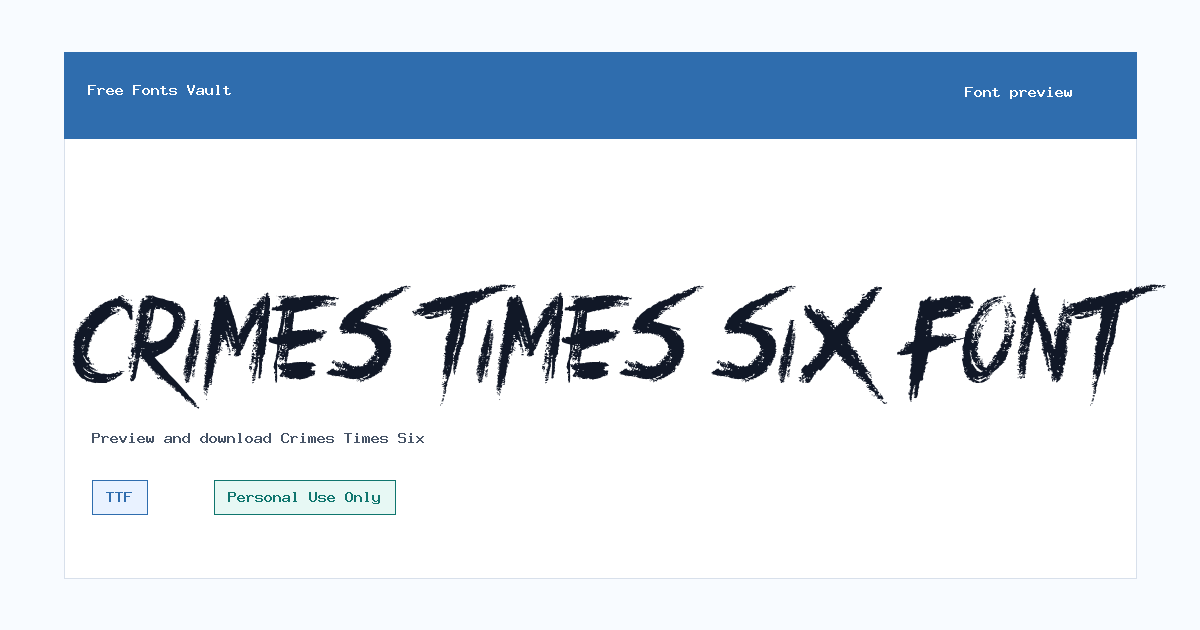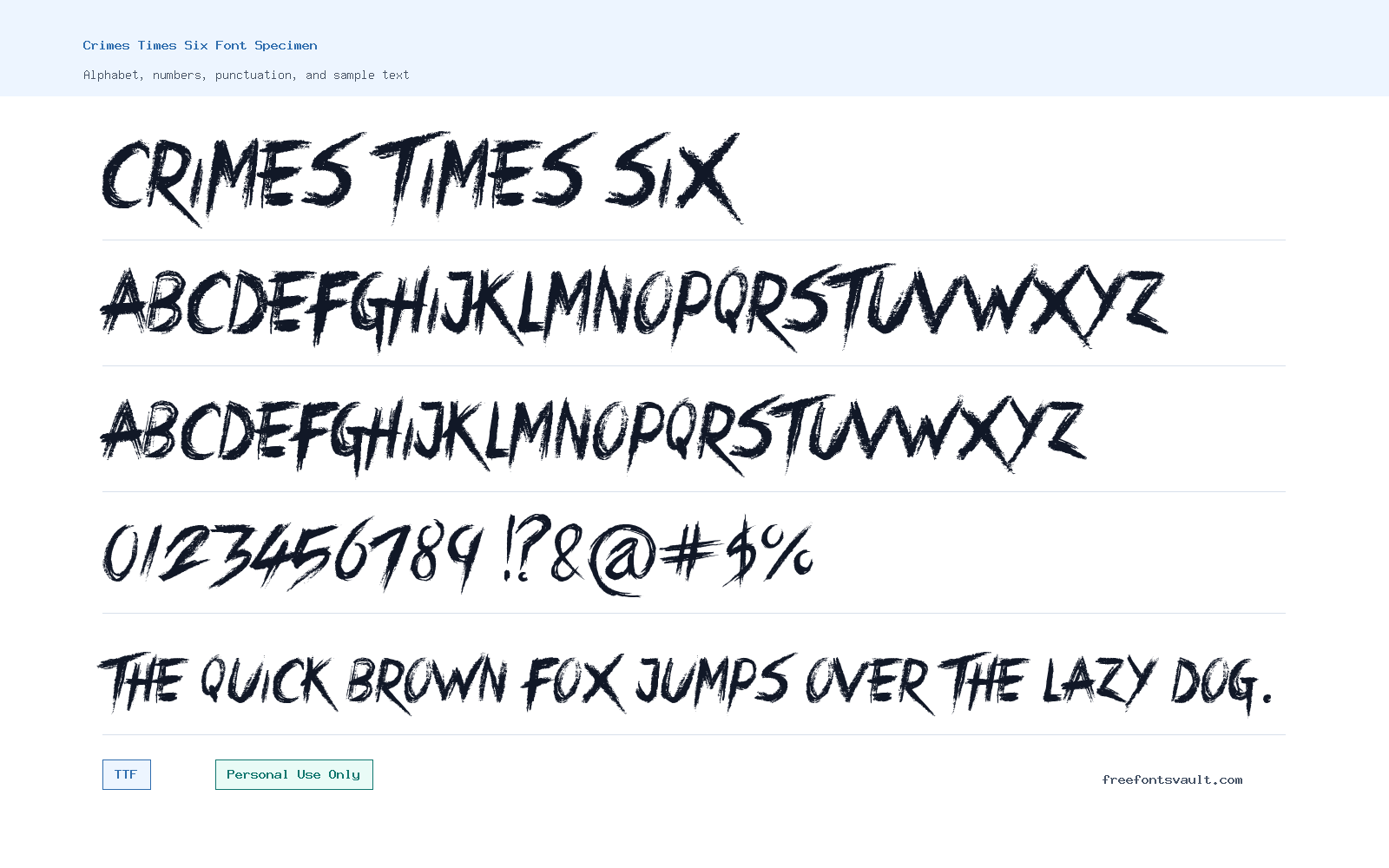
Crimes Times Six
Crimes Times Six font preview showing the family name
Crimes Times Six Font
Crimes Times Six font specimen showing alphabet, numbers, and sample text
Crimes Times Six font.
Crimes Times Six is a display font by Jonathan Stephen Harris. It comes as a regular TrueType font and is best approached as a title or short-text face rather than a long-reading font.
About Crimes Times Six
Crimes Times Six has a strong name and a single regular style, so the safest way to judge it is in the live preview with your own words. Try it at headline sizes first, then reduce the size to see where the letter shapes start to lose clarity. Fonts with this kind of display focus usually work best when the text is short and the spacing is checked carefully.
Use Crimes Times Six for names, posters, themed headings, cover-style text, thumbnails, labels, or graphics where the font can be large enough to show its personality. Avoid relying on it for body copy, menus, legal text, or any design that needs fast reading across many lines. If you pair it with another font, choose a plain sans serif or simple serif for supporting text so the main title stays clear.
• Posters, covers, and title graphics
• Short display text, themed headers, and preview mockups
Crimes Times Six is credited to designer Jonathan Stephen Harris, with Jonathan S Harris named as the foundry.
Who designed Crimes Times Six?
The font is credited to Jonathan Stephen Harris.
What is Crimes Times Six best used for?
Use it for short display text such as titles, posters, covers, labels, and themed graphics. Test it carefully before using it in small sizes or long passages.